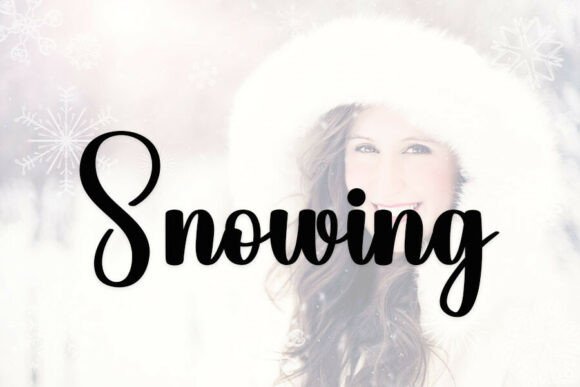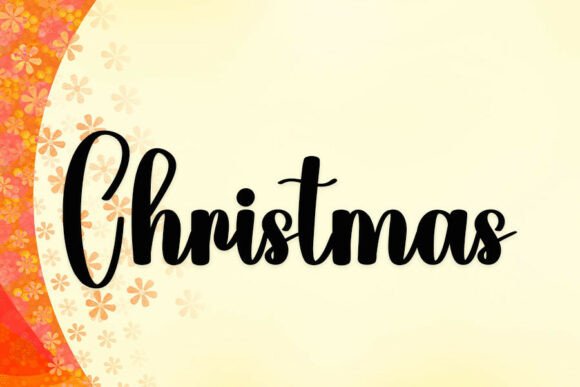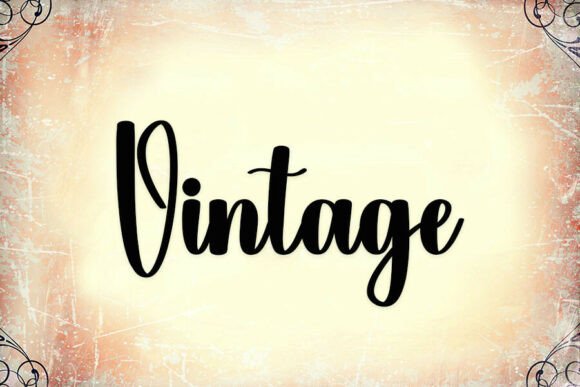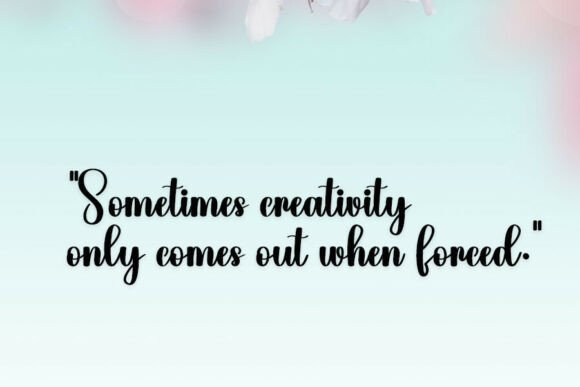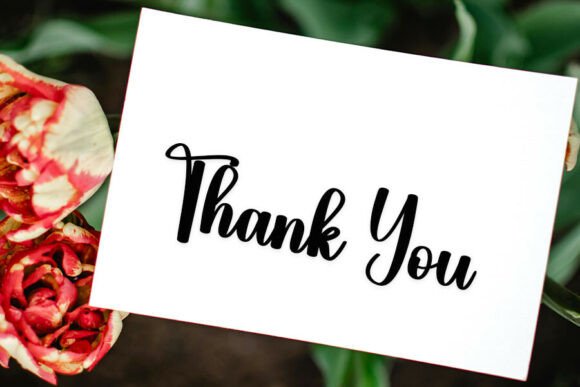
Introducing Adventure Font: Elevate Your Designs with a Timeless Handwritten Style
Are you on the lookout for a font that can add a touch of personality and whimsy to your designs? Look no further than Adventure Font, a lovely and timeless handwritten font that is sure to capture the hearts of designers and crafters alike. With its unique and beautiful touch, this font is the perfect choice for creating eye-catching logos, branding, and quotes that will make your design come alive!
Handwritten fonts have always been a popular choice among designers, and for good reason. They offer a level of warmth and personality that is hard to replicate with traditional fonts. Whether you’re looking to create a logo, branding materials, or social media graphics, a handwritten font can add a touch of elegance and sophistication to your design. And Adventure Font is no exception.
What Makes Adventure Font Special?
So, what sets Adventure Font apart from other handwritten fonts on the market? For starters, every letter has a unique and beautiful touch that is sure to make your design stand out. The font is carefully crafted to ensure that each letter is distinct and visually appealing, making it perfect for creating eye-catching logos and branding materials. Additionally, the font is highly versatile, making it suitable for a wide range of design applications.
Adventure Font is a dream come true for designers and crafters who are looking for a font that can help them create stunning designs. Whether you’re a professional designer or a hobbyist, this font is sure to inspire your creativity and take your designs to the next level. With Adventure Font, you can create:
- Eye-catching logos that will make your brand stand out
- Beautiful branding materials that reflect your unique style
- Inspirational quotes that will motivate and uplift your audience
- Stunning social media graphics that will help you connect with your followers
Why Choose Adventure Font?
So, why should you choose Adventure Font over other handwritten fonts on the market? Here are just a few reasons:
- Unique and Beautiful Touch: Every letter has a unique and beautiful touch that will make your design come alive.
- Highly Versatile: The font is suitable for a wide range of design applications, from logos and branding to quotes and social media graphics.
- Timeless Style: The font has a timeless style that will never go out of fashion, ensuring that your designs will remain relevant for years to come.